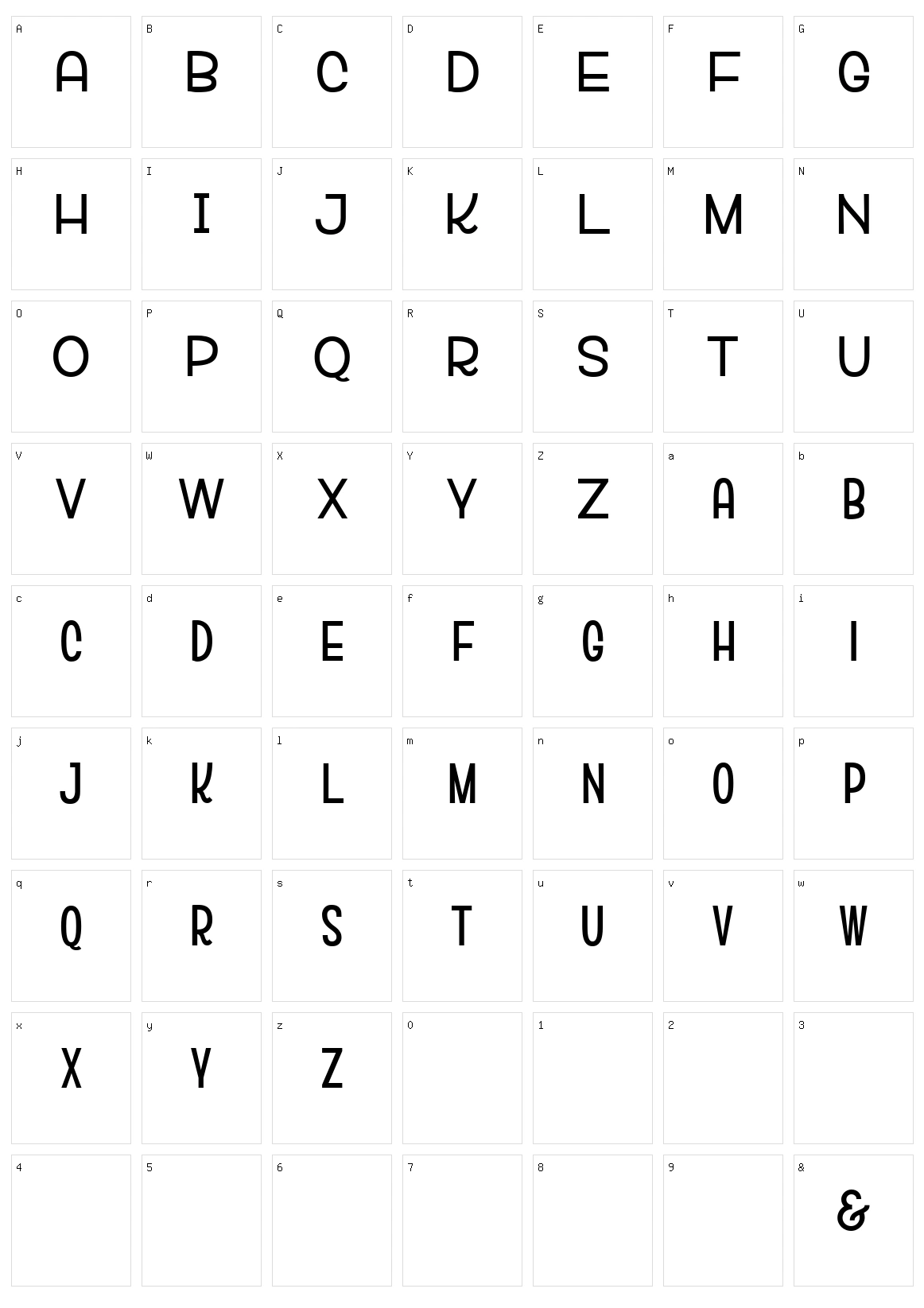
This is VERSALITA&, It's a sans serif font that contains upper case, lower case in versalite, and an alternative of every letter in a smaller size. It has more than 450 characters. The idea is that everyone could have the possibility to mix the letters and create multiple alternatives of the same words.
FEATURES:
- +450 characters (letters: upper case + lower case + versalites)
- +250 special characters and numbers
+90 ligatures
Ligatures:
- L + lower case
- T + lower case
- t + T + lower case